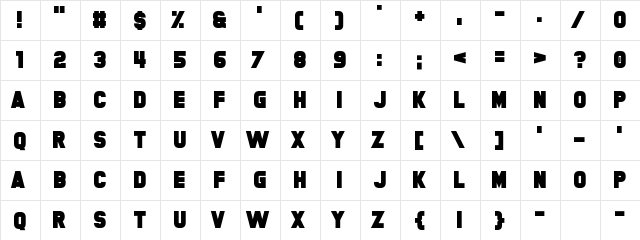
Trample Over Beauty Regular
Design Context for Trample Over Beauty Typeface
Trample Over Beauty is a composed and adaptable typeface that performs quietly and consistently across a wide range of design contexts.
Pro Tip: Pair Trample Over Beauty with a font of contrasting weight or personality to build a more expressive typographic hierarchy.